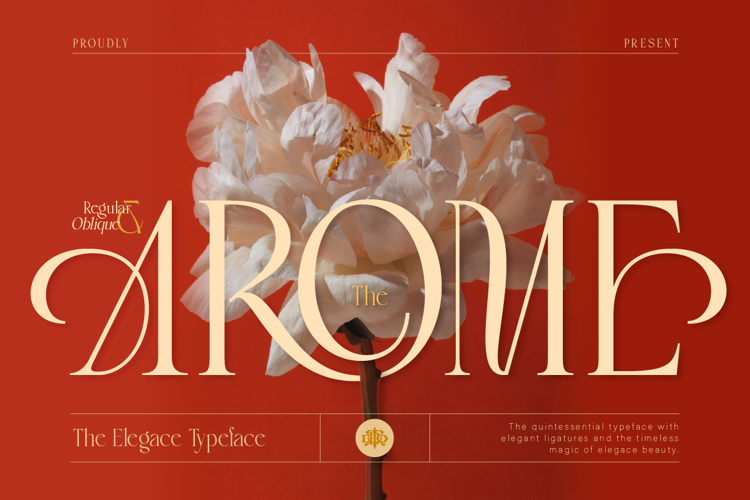
Arome Font
Arome is a refined serif typeface designed to bring a sense of elegance, romance, and timeless beauty into your work. With its graceful curves, high contrast strokes, and delicate details, Arome creates a luxurious look that feels both classic and modern.